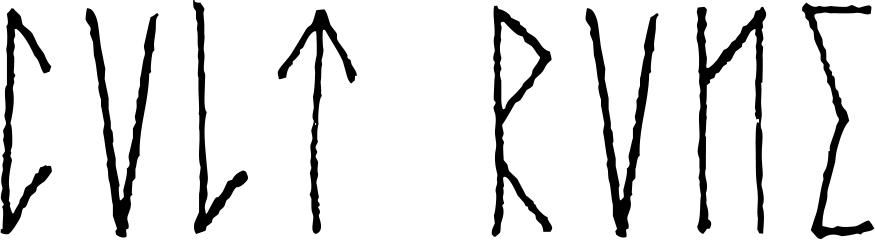
Cvlt Rvne Font
Inspired by the writing style of the past with a strong geometric design that makes it lose its legibility in many situations. However, none of this has diminished its beauty and uniqueness, especially the lack of numbers, punctuation, and lowercase letters.
The Cvlt Rvne Runic font is available in two different versions with its angular and sharp design to show off its effectiveness to the world in highlighting any retro mysterious movie poster book titles, cover music, clothing, etc.
From the frigid wastes of Norway we bring you Cvlt Rvne Regular! Cvlt Rvne is a hand-drawn typeface designed to merge Scandinavian rune lettering with Southern California graffiti. Upper and lower cases feature different variations of the capital letters.